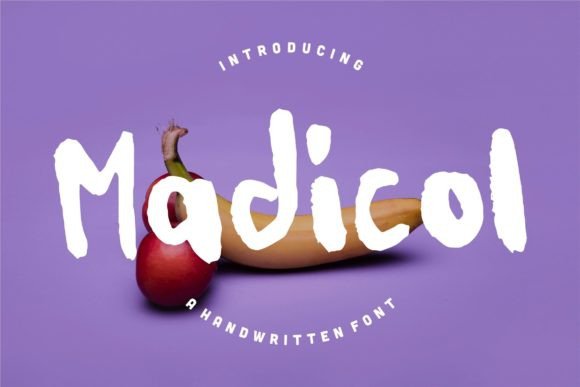
Madicol Font
Journey into the realm of Madicol, a captivating script font family that mirrors the beauty and spontaneity of handwriting. Created by the talented Vunira, Madicol is not just a font; it's an expression of creativity, waiting to dance across your digital canvas. With its bold and playful strokes, Madicol oozes character and charm, ready to transform your designs into works of art.
Unleash your imagination and let Madicol guide you through a world of endless possibilities. This font family is meticulously crafted to blend seamlessly with your creative vision, bringing a touch of authenticity and allure to every project. Whether you're crafting heartfelt messages, designing stunning logos, or creating eye-catching social media posts, Madicol is your perfect companion.
With Madicol, you'll discover a font that speaks volumes, conveying emotions and messages with every letterform. Its fluid lines and dynamic curves mimic the natural flow of handwriting, inviting your audience to connect with your content on a deeper level. Madicol is more than just a font; it's an experience that captivates and engages, leaving a lasting impression on all who encounter it.
But Madicol isn't just a pretty face; it's also incredibly versatile. Its carefully balanced strokes and letterforms ensure readability and clarity, even at small sizes. Whether you're working on print projects, web designs, or digital marketing materials, Madicol adapts effortlessly to your needs, delivering exceptional results every time.
Join the creative revolution and embrace the beauty of Madicol. Let your designs dance with personality and flair, captivating audiences with every stroke. Madicol is the key to unlocking your creative potential, turning your ideas into stunning realities. Embrace the artistry of Madicol and watch your designs flourish like never before!